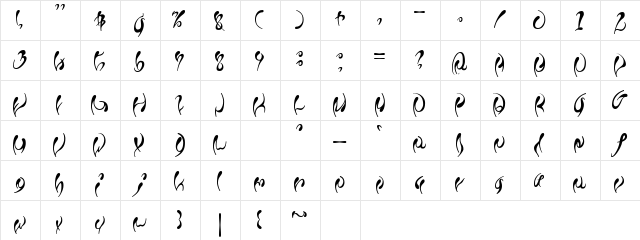
fleur Regular
Design Context for fleur Typeface
fleur is a composed and adaptable typeface that performs quietly and consistently across a wide range of design contexts.